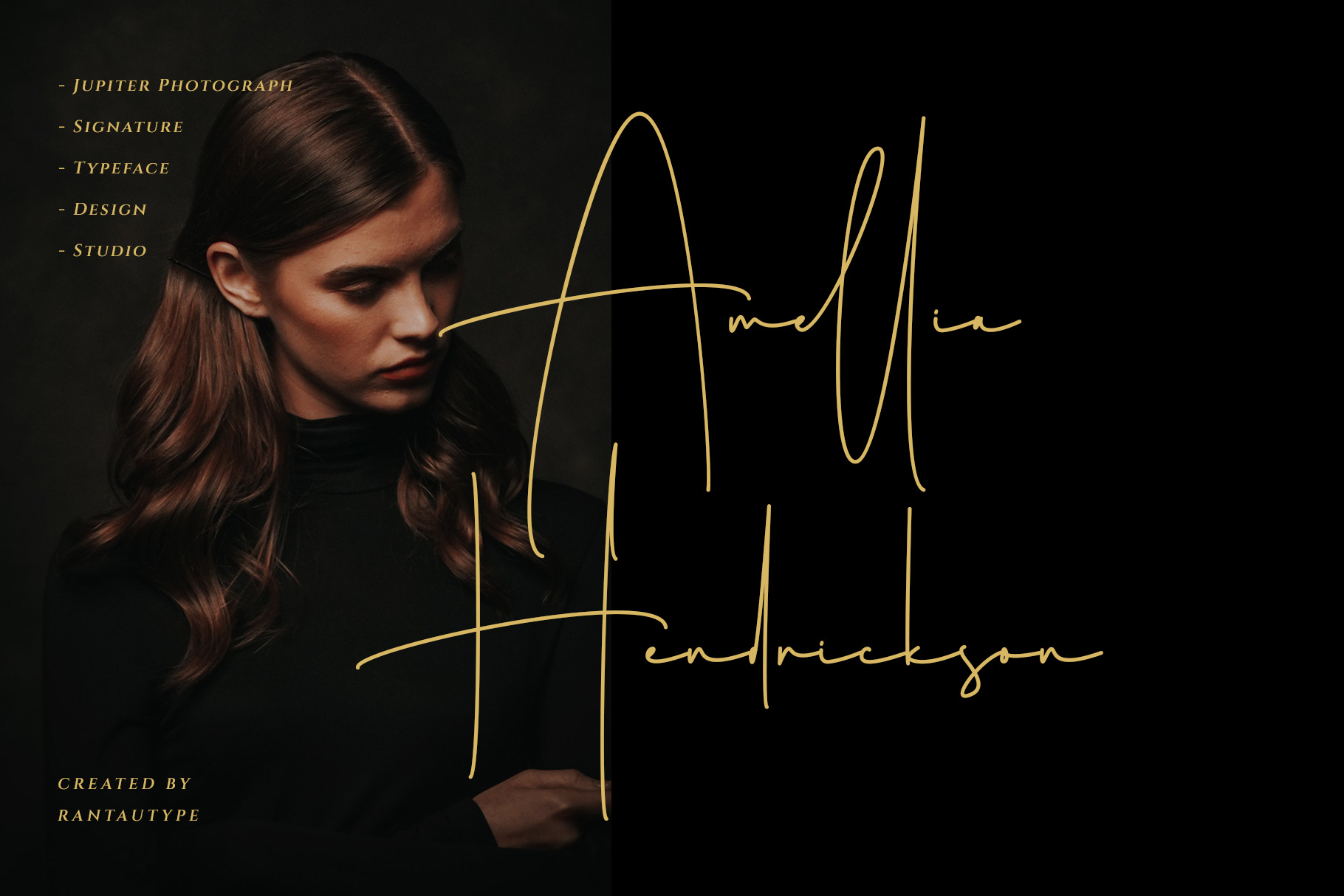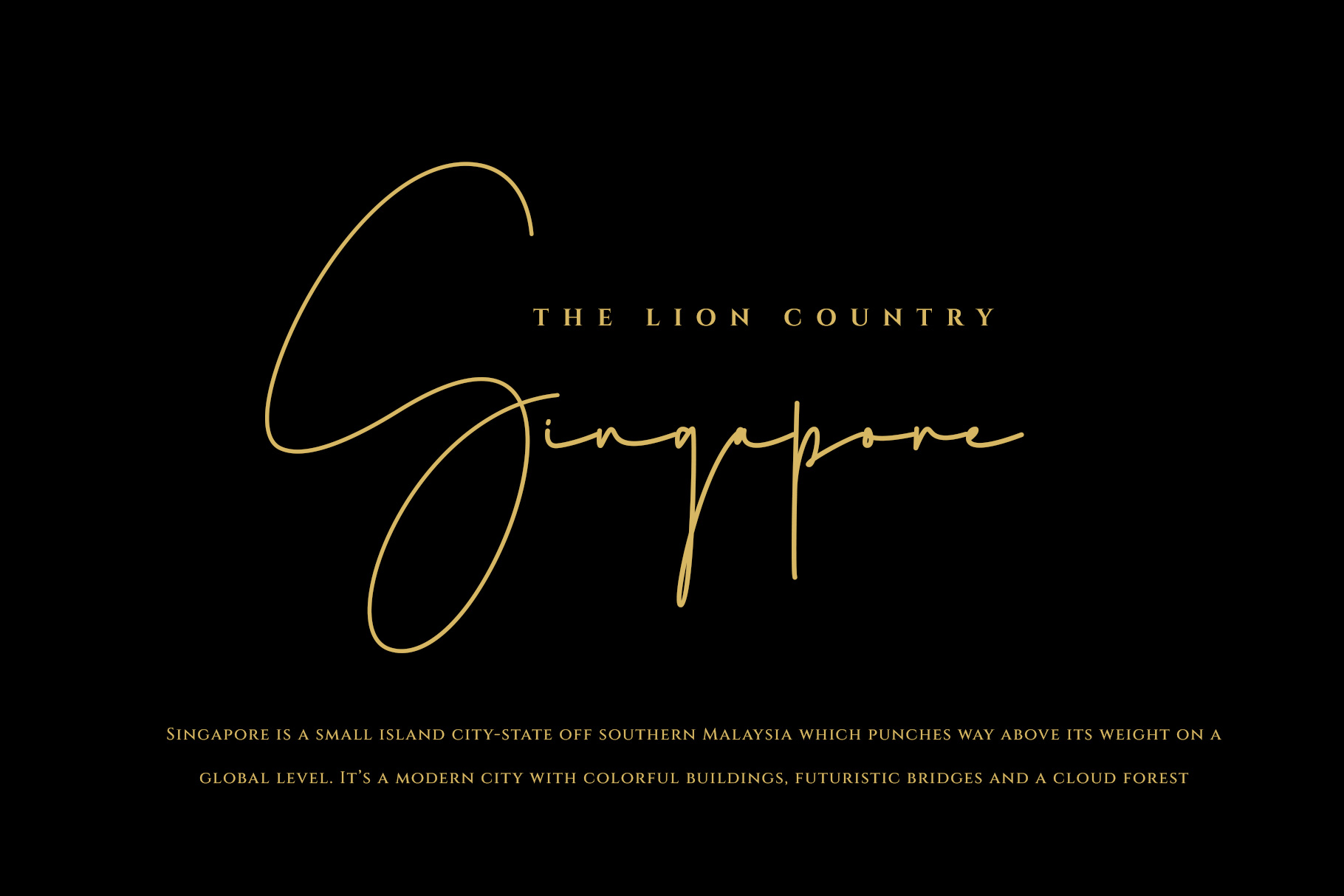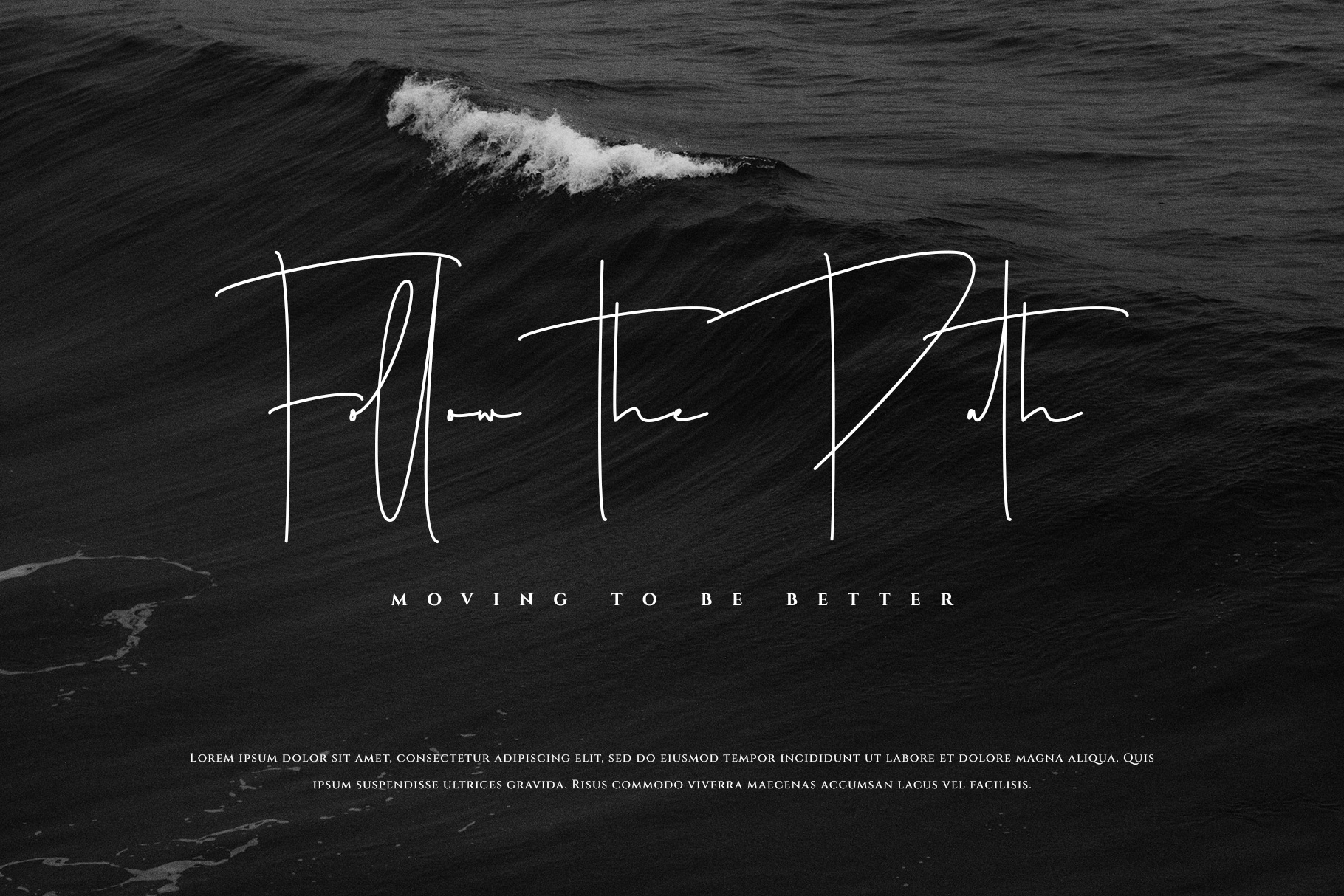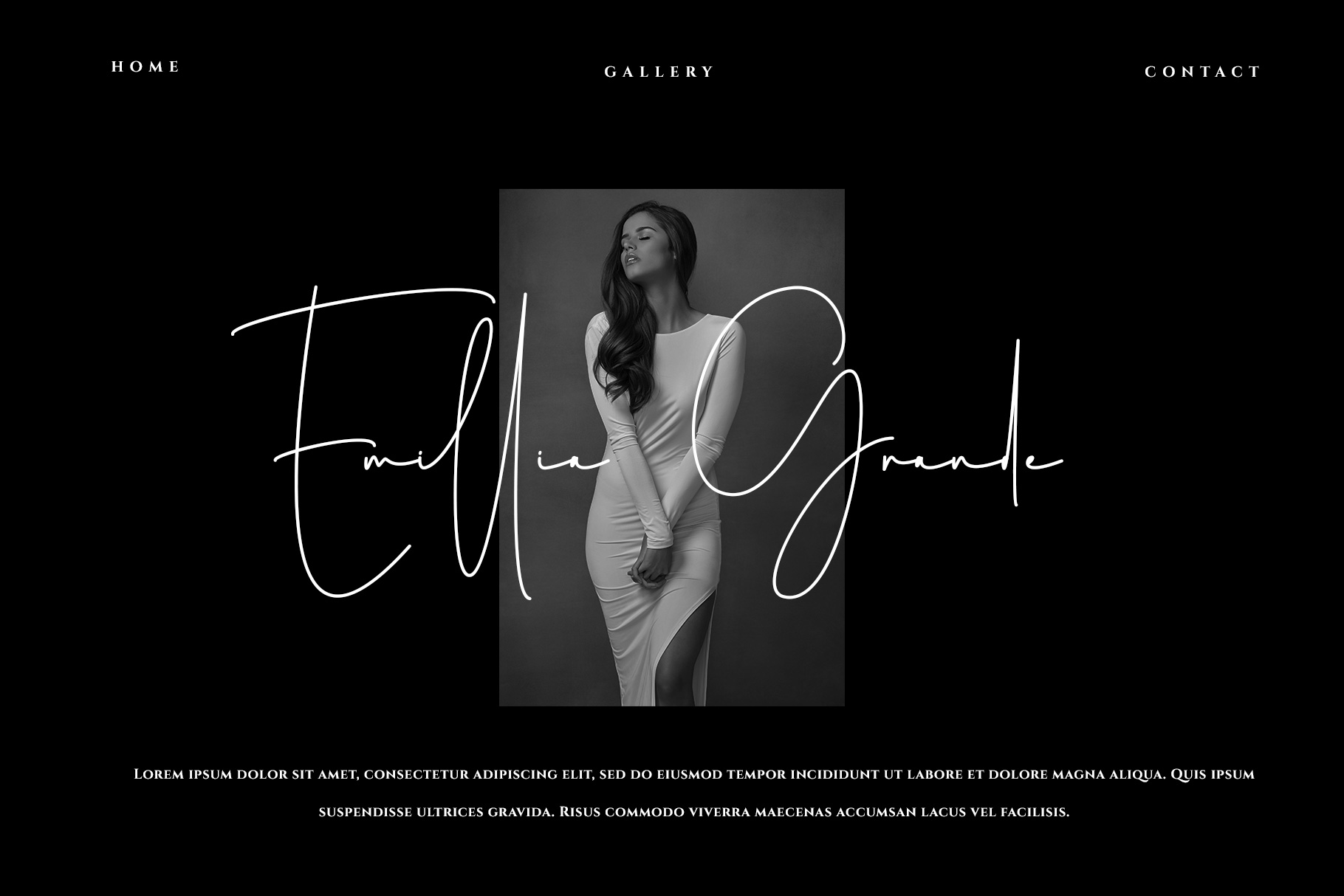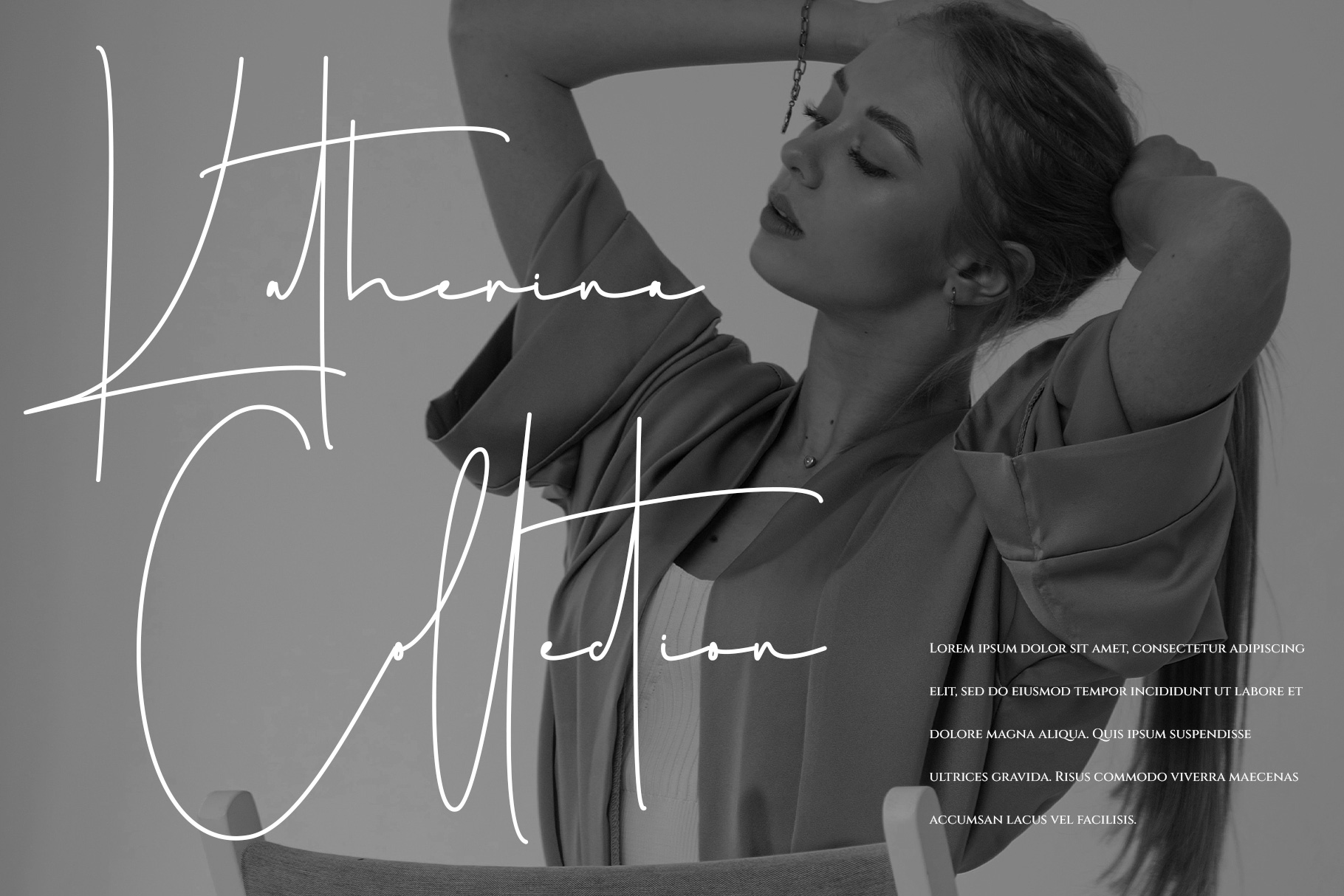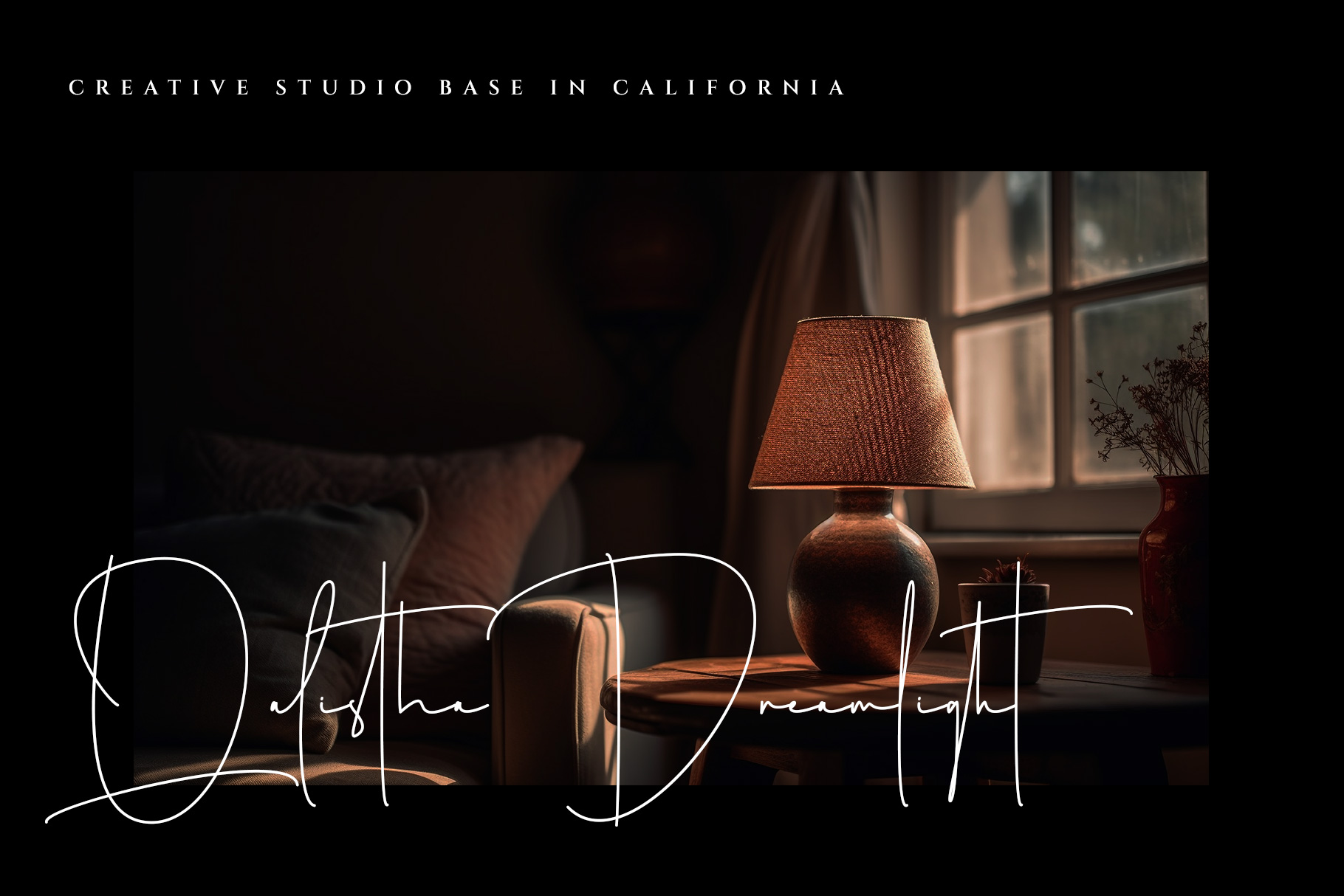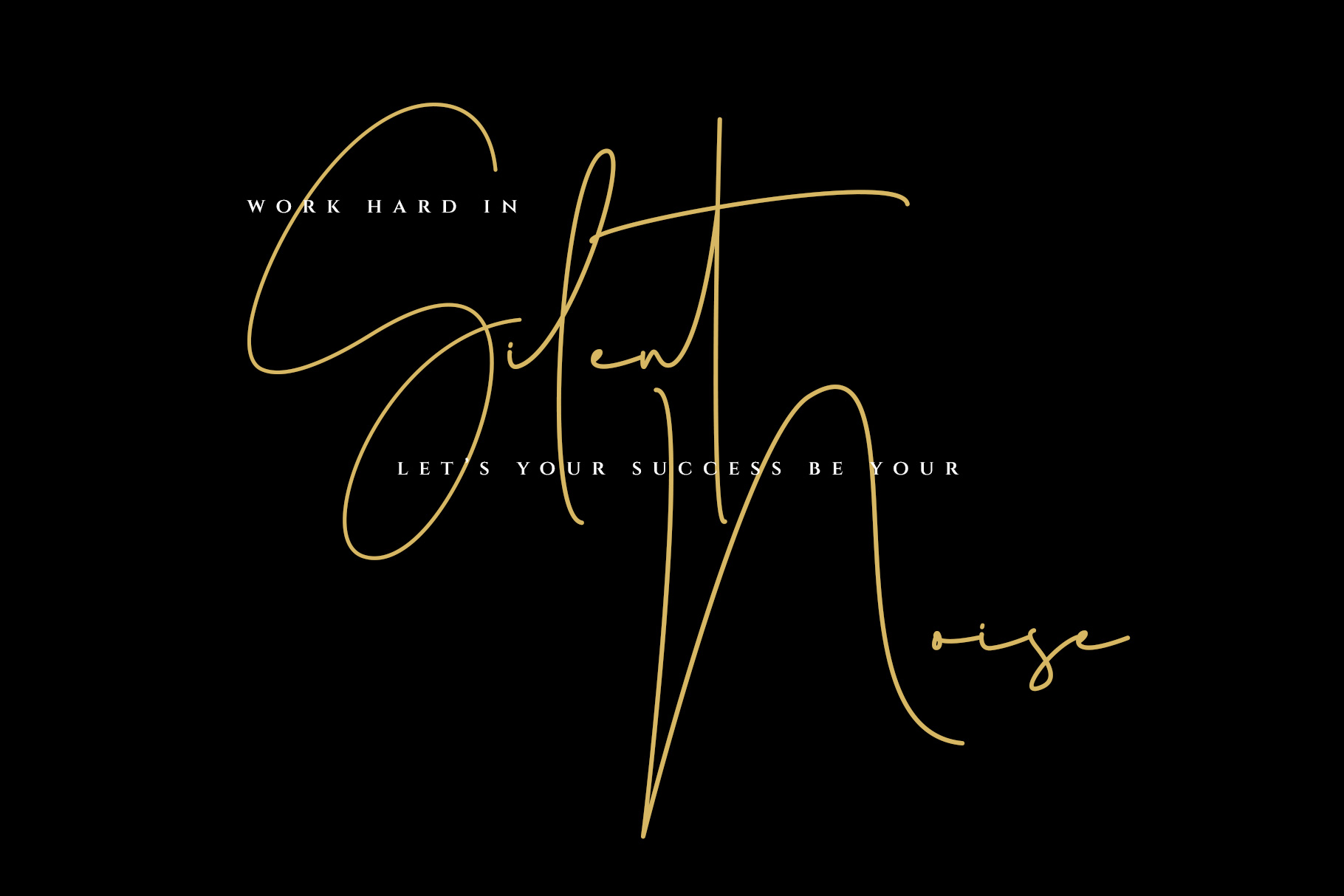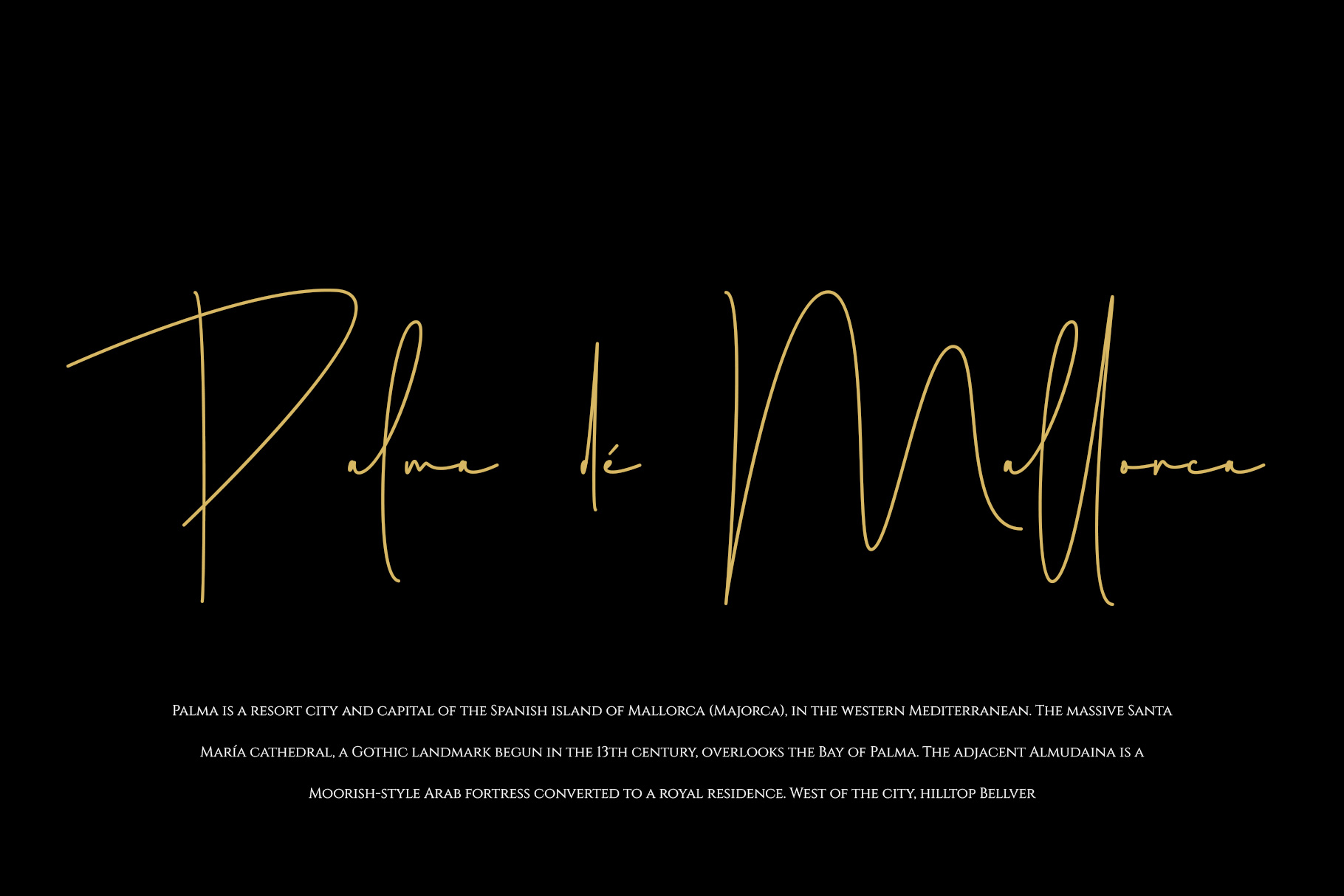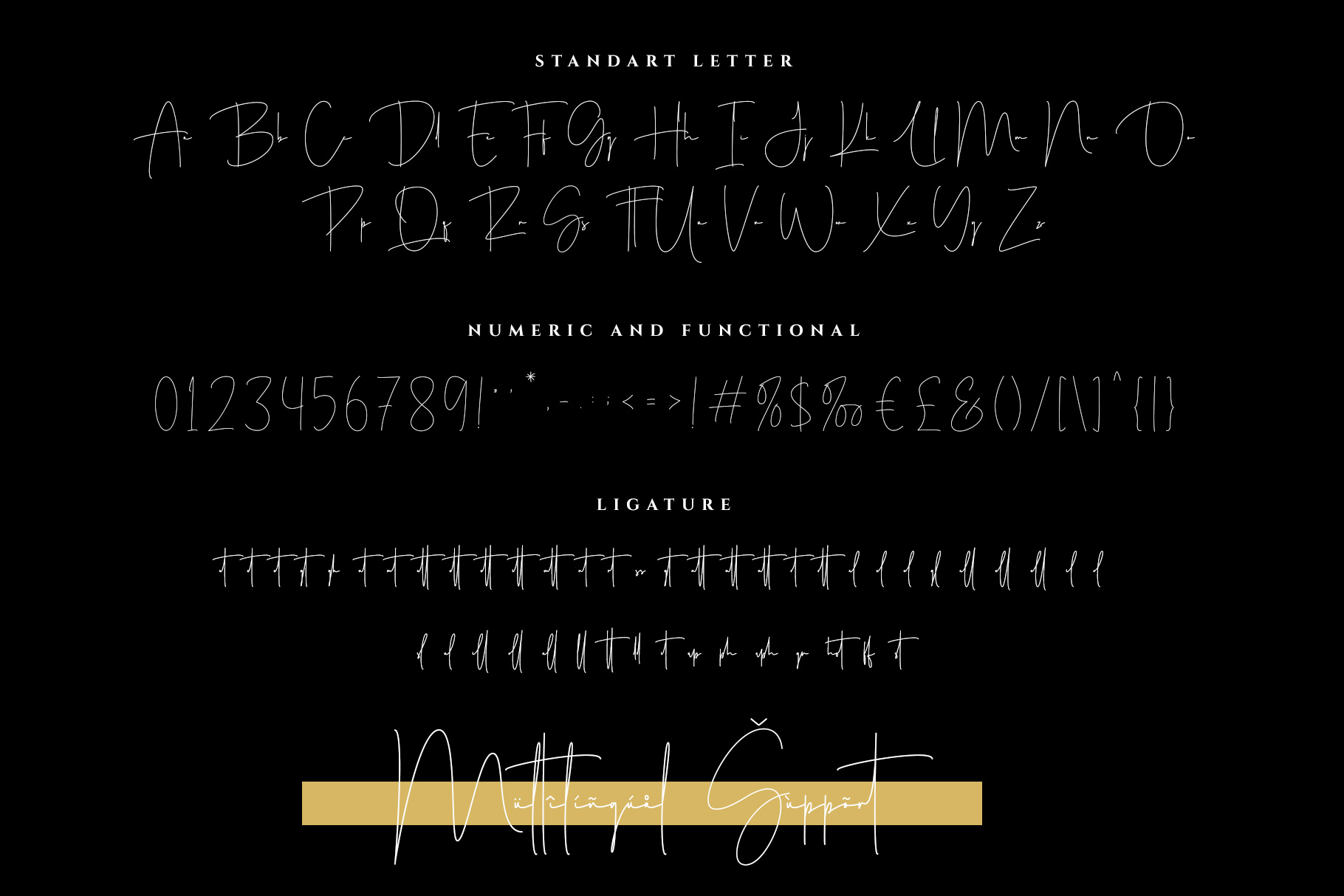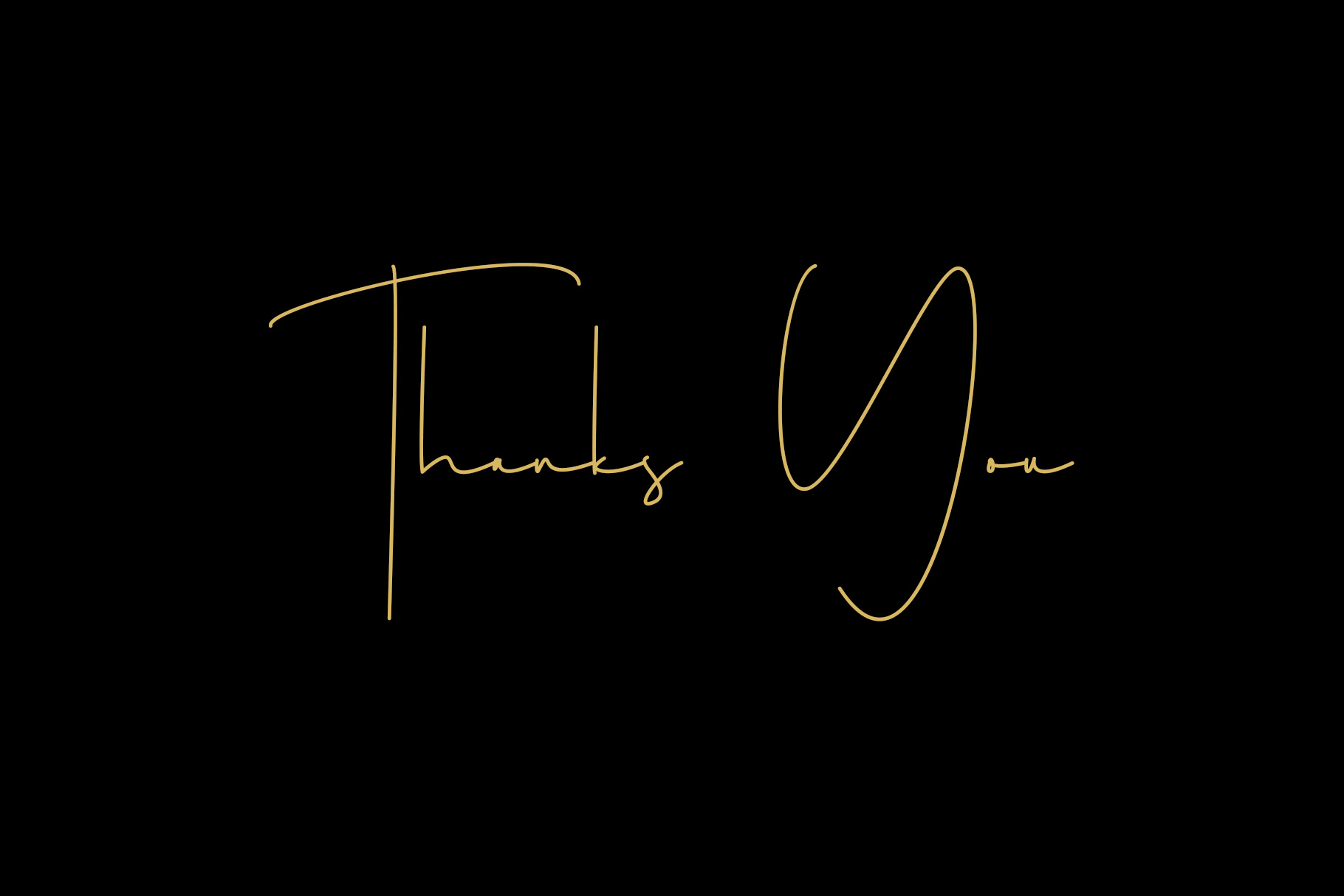
Jupiter Photograph Signature Font
Jupiter Photograph –  stylish signature which can be interpreted professional. we keep this font looks elegant, luxury, premium, modern, readable, stylish, catchy and easy to use.
Jupiter Photograph – is the great choice for watermark on photography, branding, wedding event, signature or signature logo design, quotes, album cover, magazine, business card and many other design project. Jupiter Photograph here to make your work to high level!!!
• Ligature and Alternate